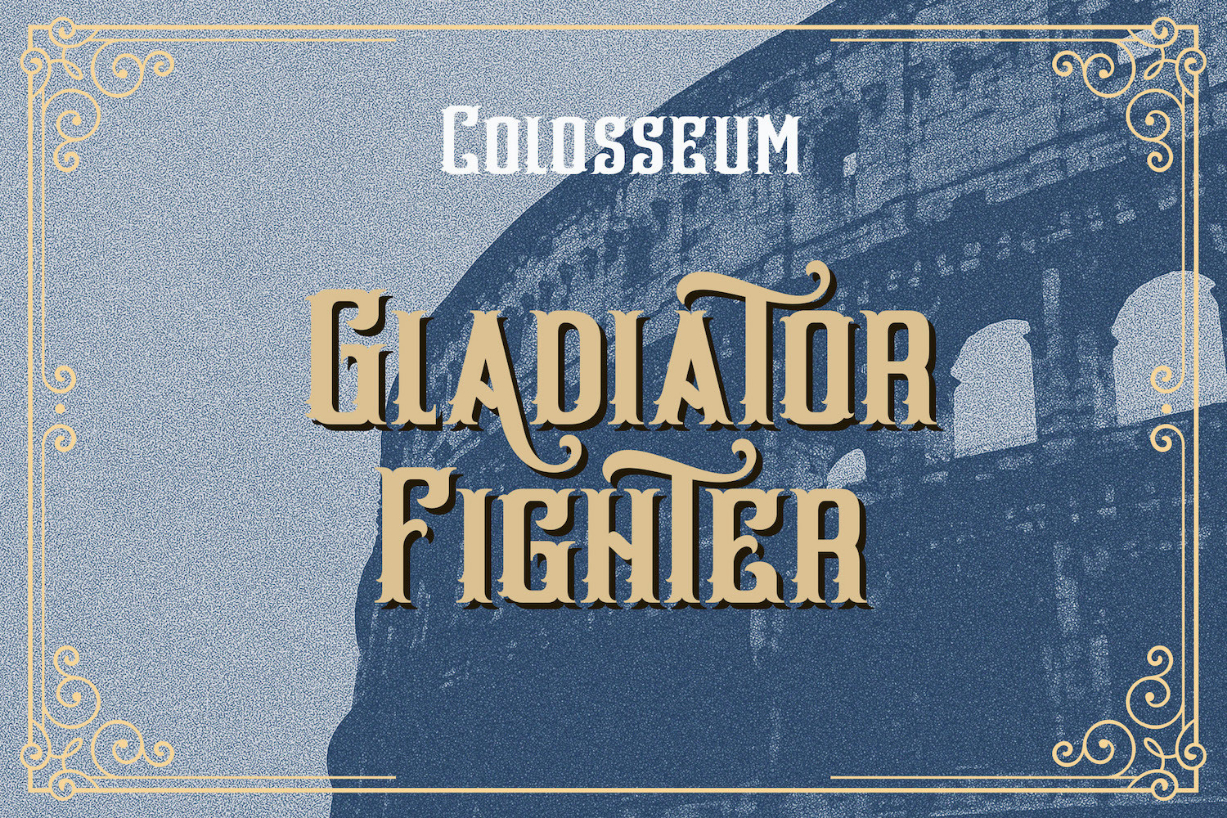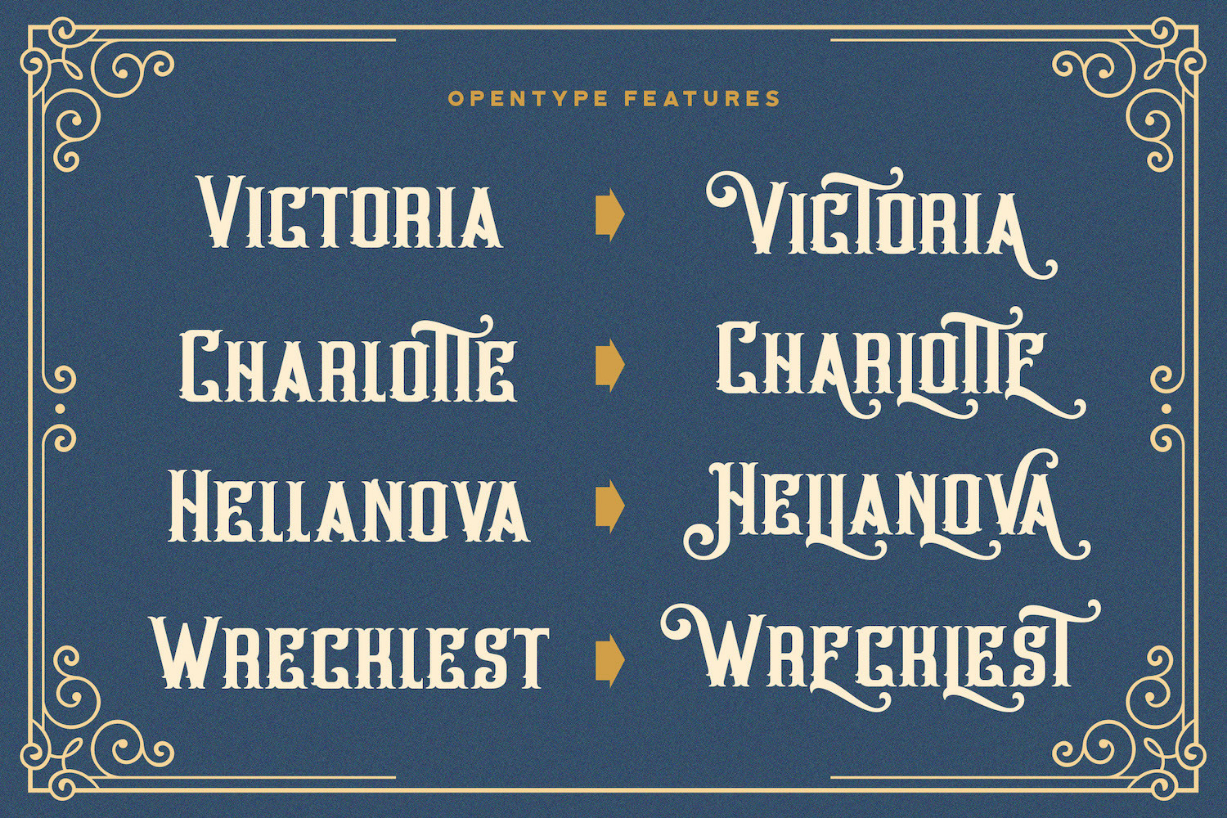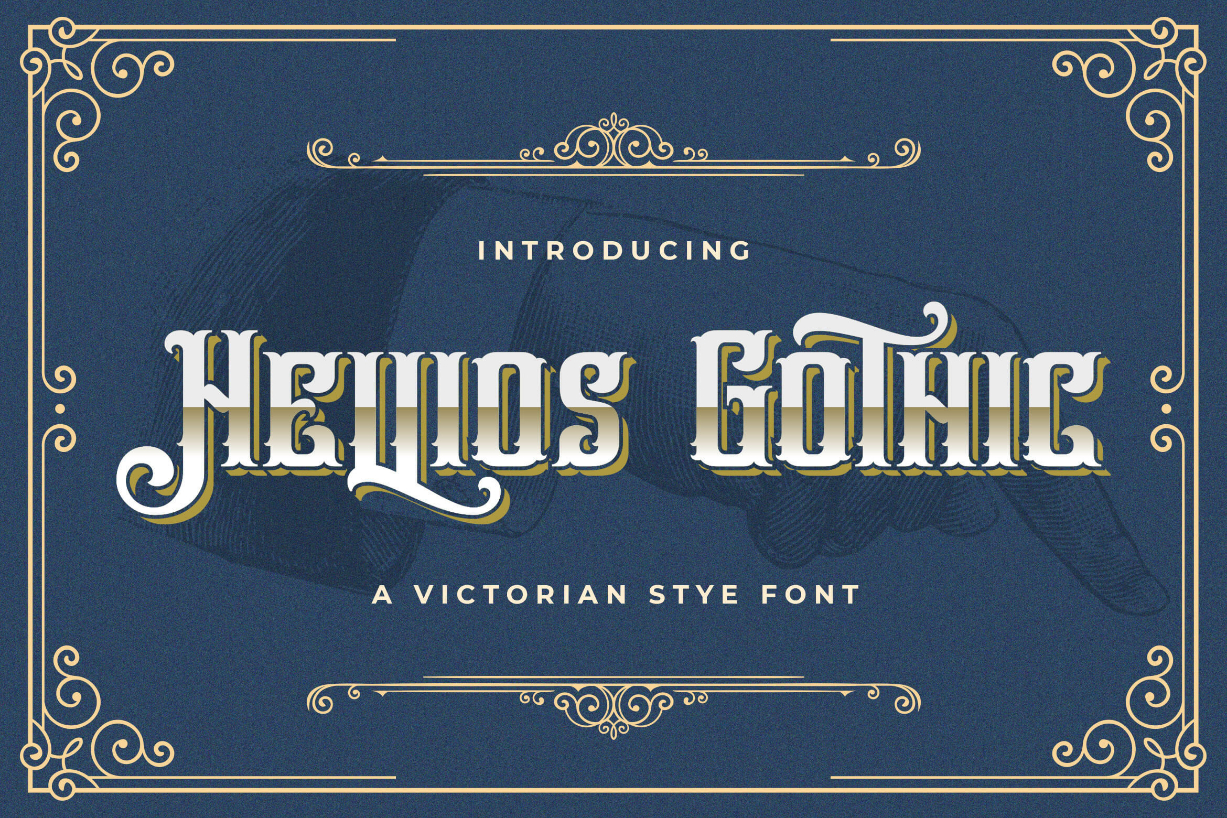
Hellios Gothic Font
About Hellios Gothic Font
Hellios Gothic is an incredibly authentic and daring blackletter font. Inspired by the Victorian era, this typeface will elevate the look of any creation! Use it for spirits labels, vintage product packaging, exquisite apparel, and more!